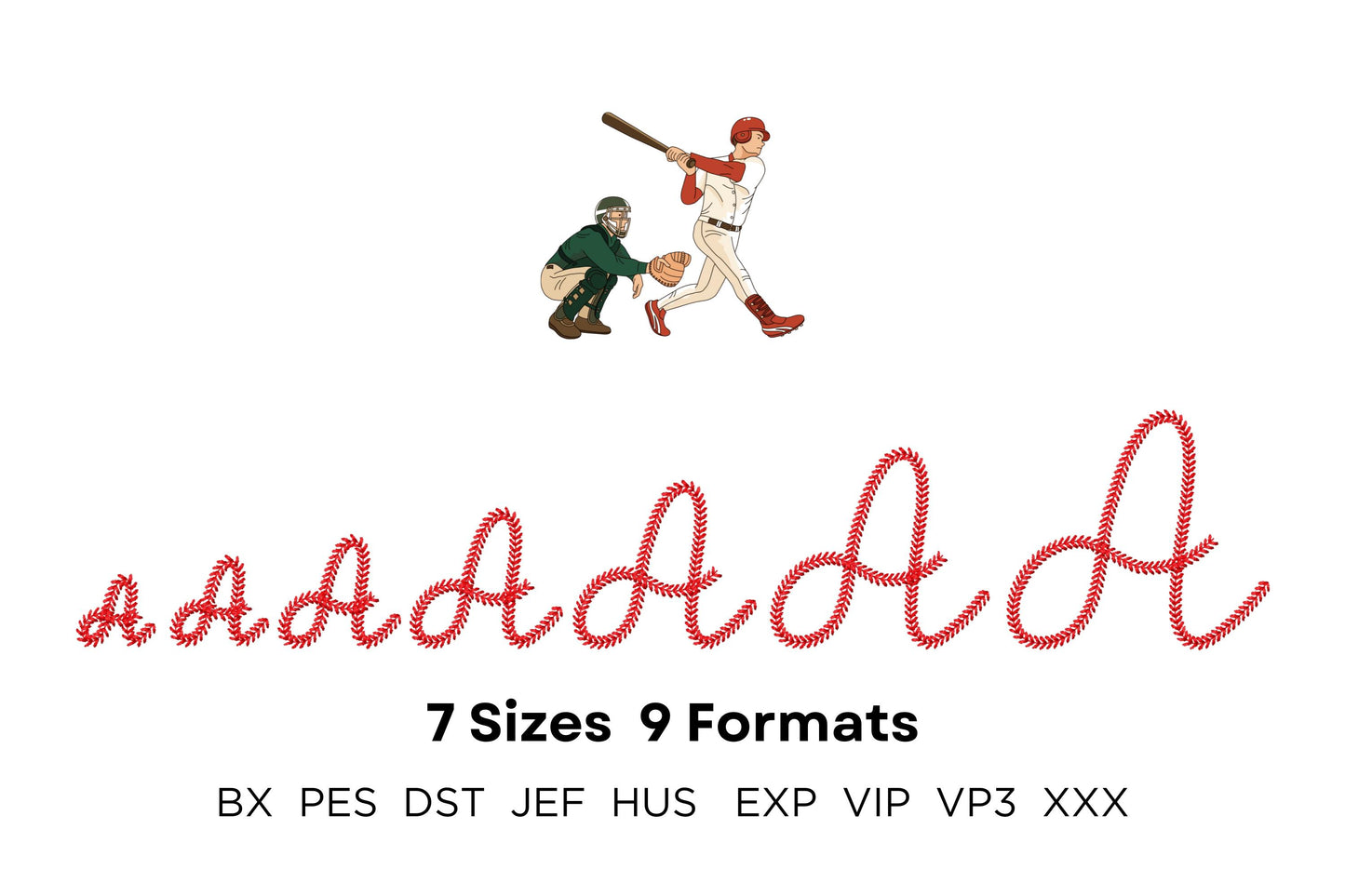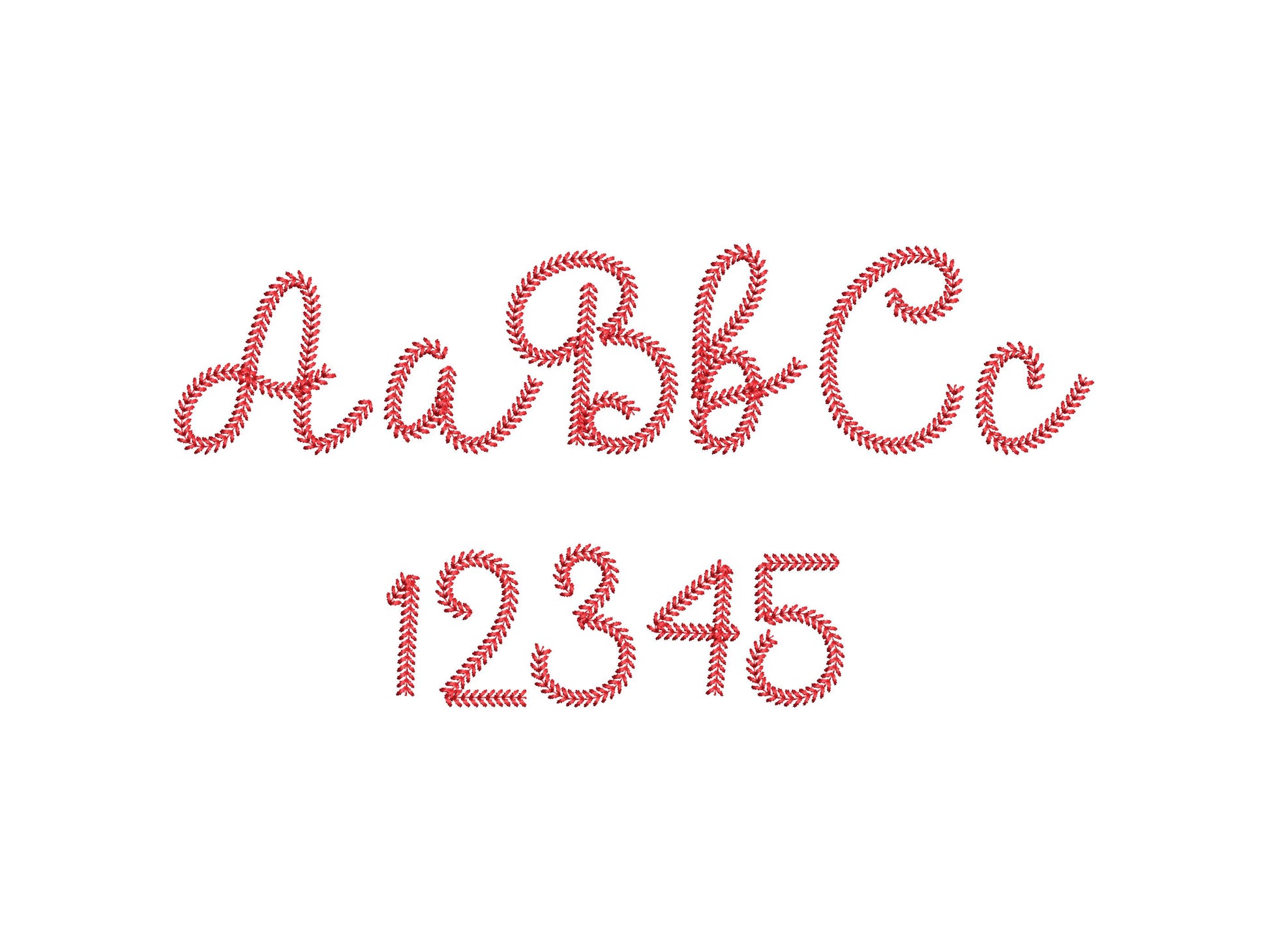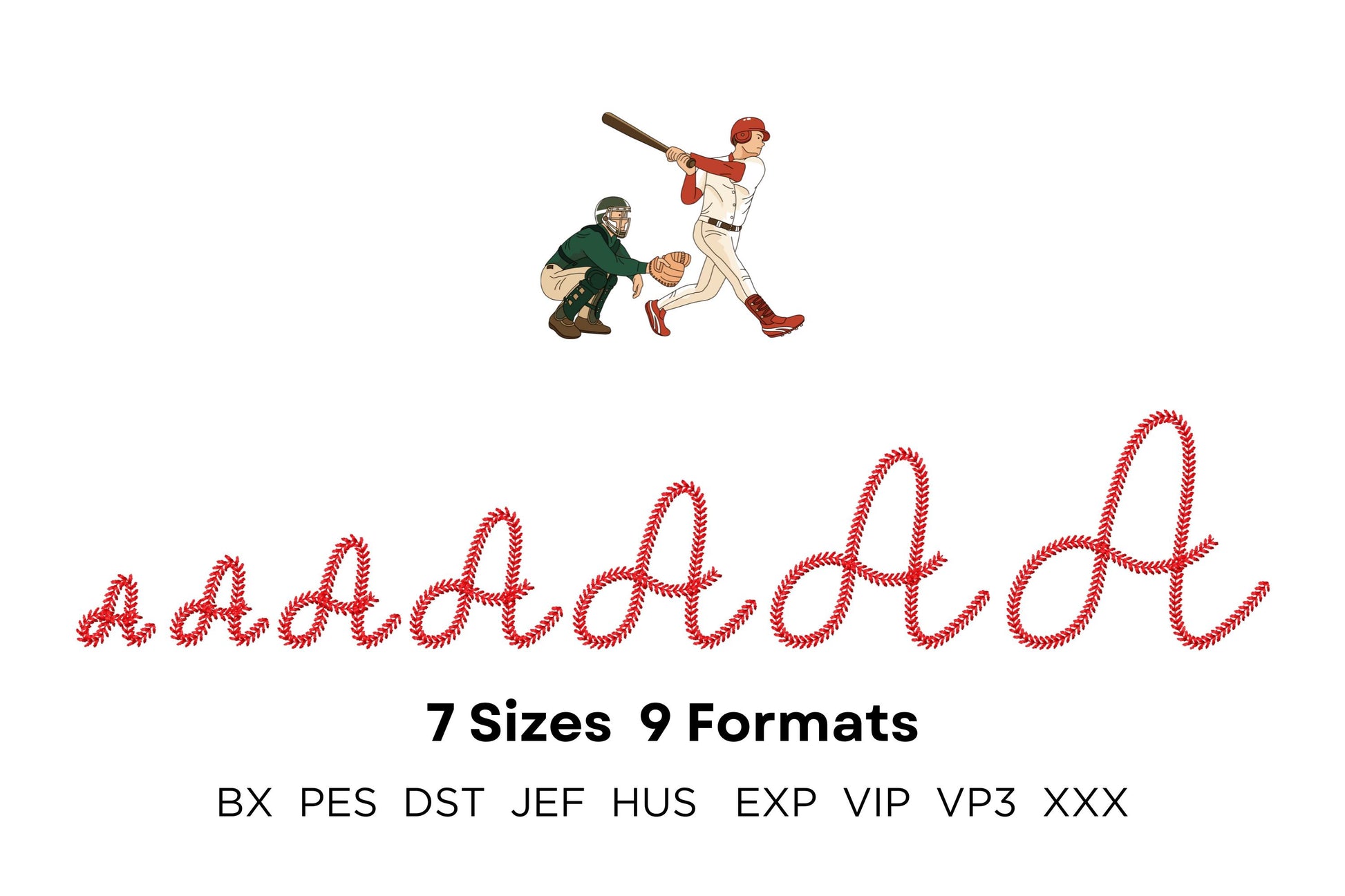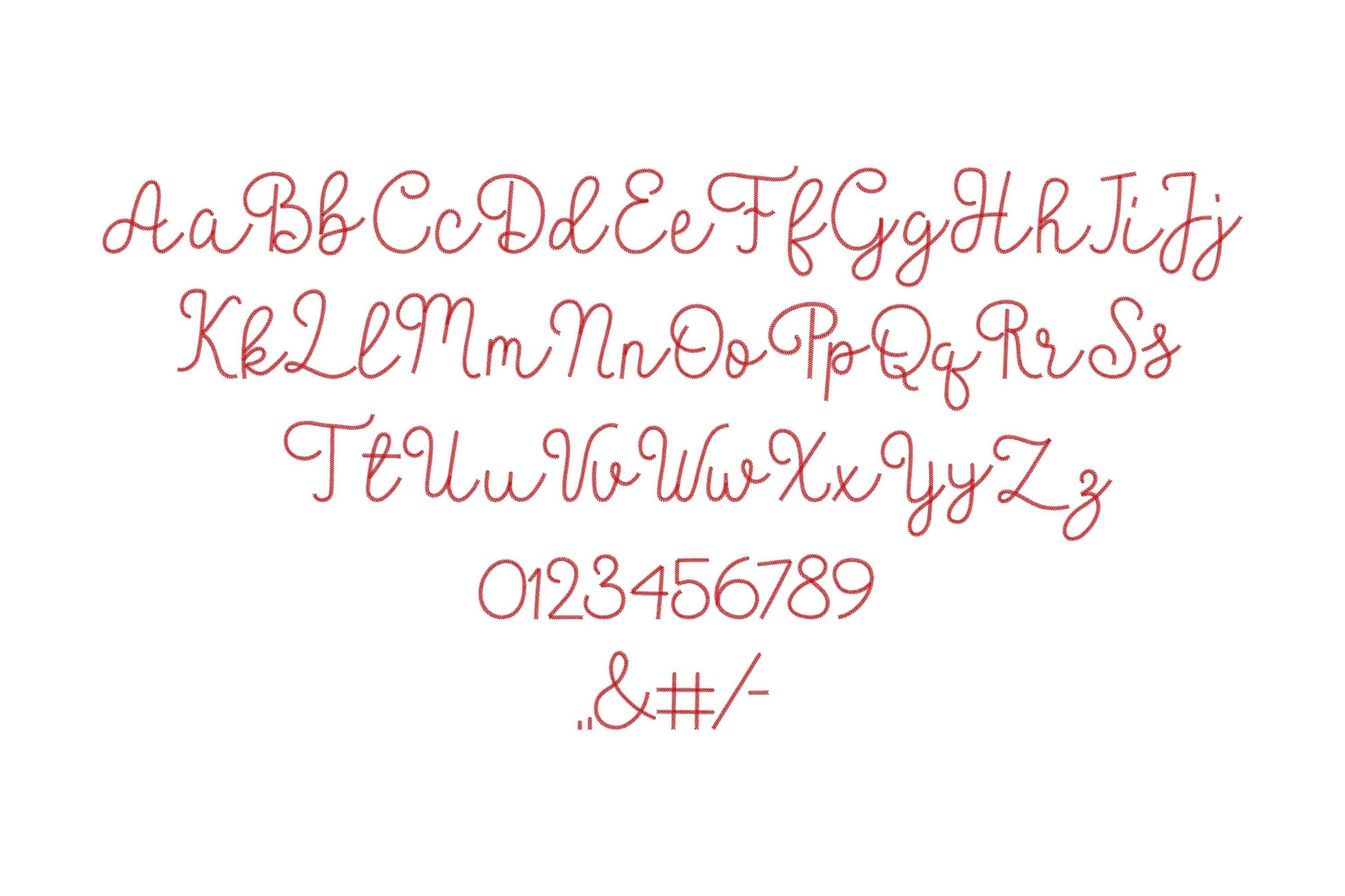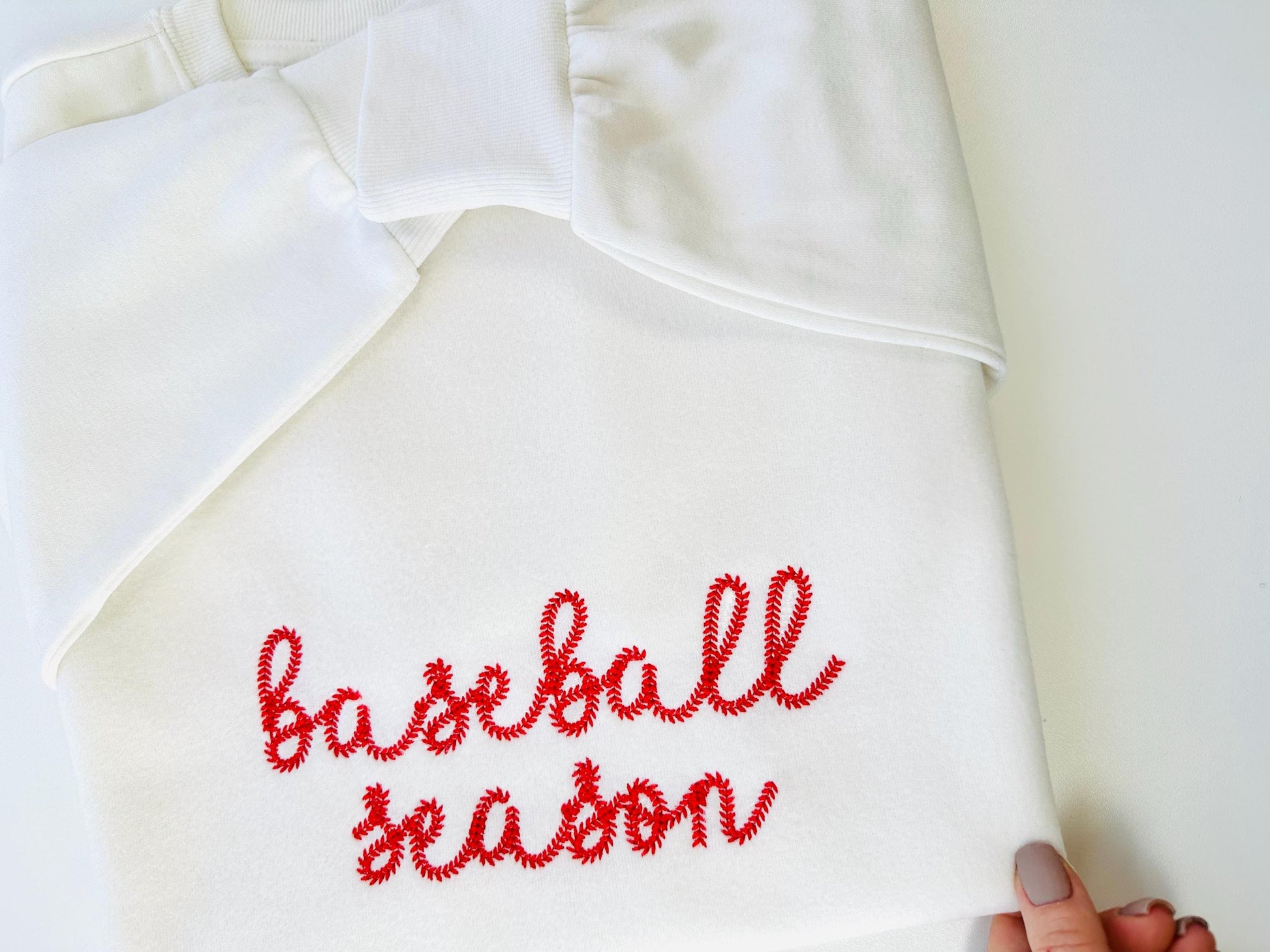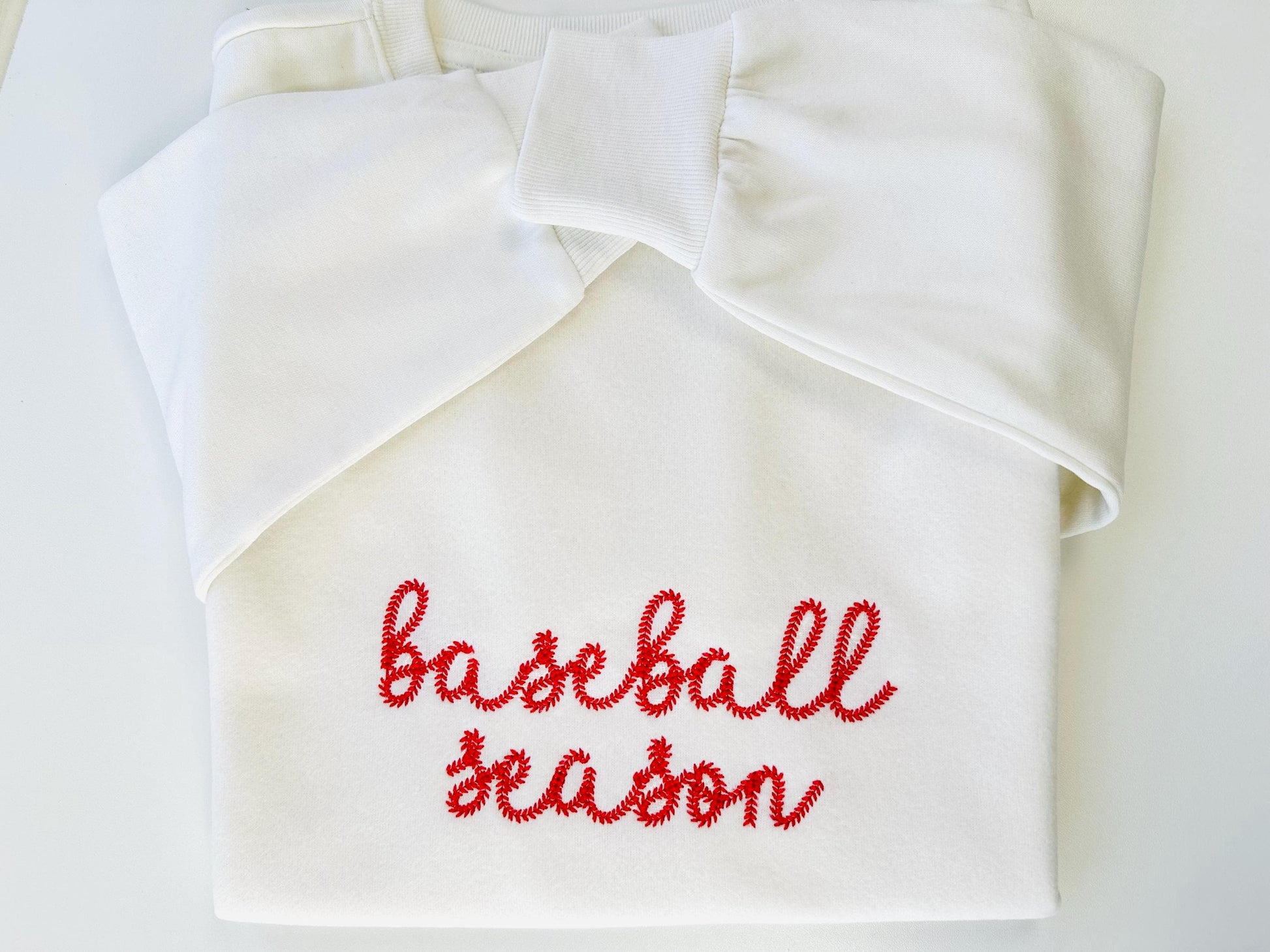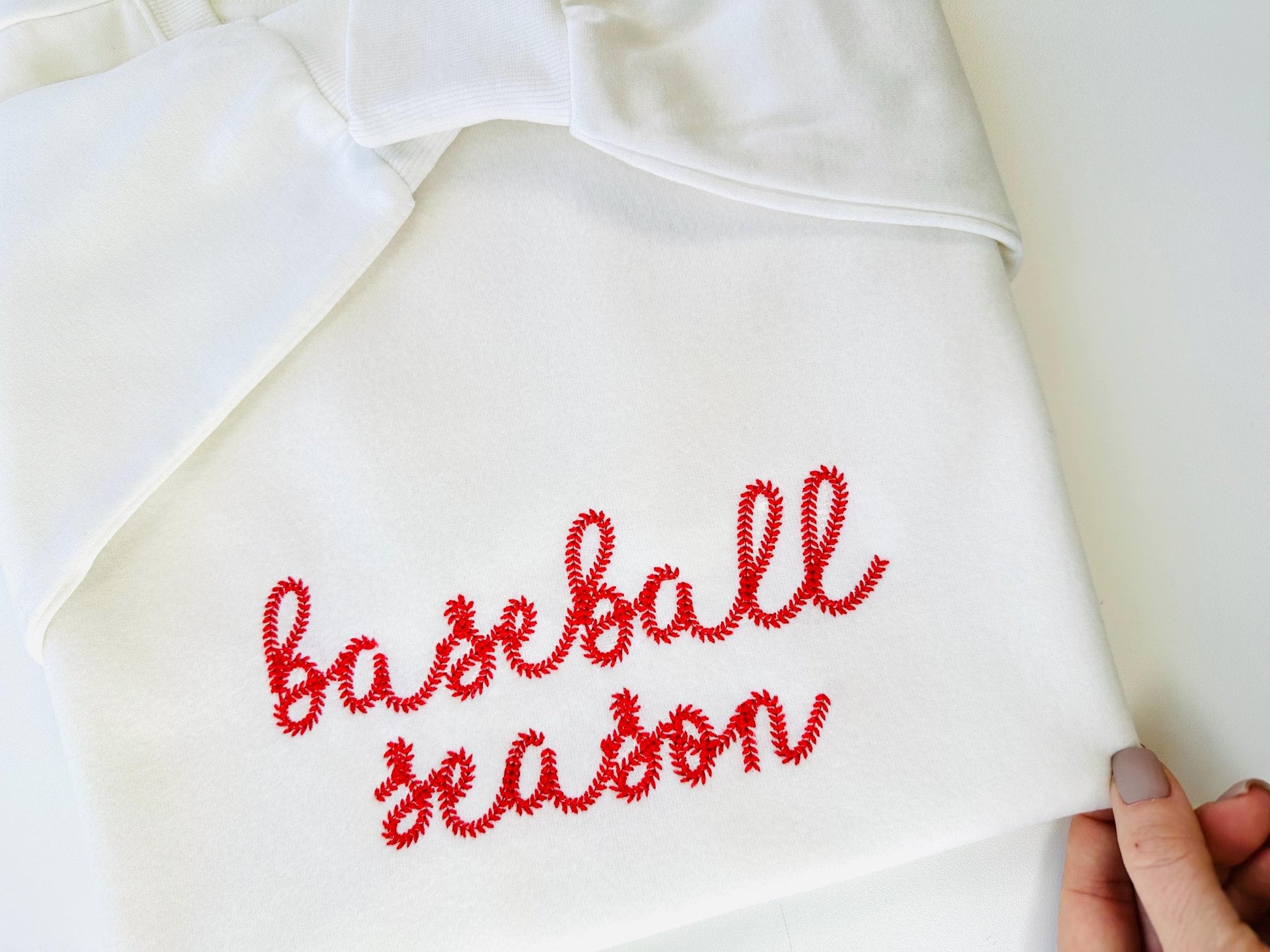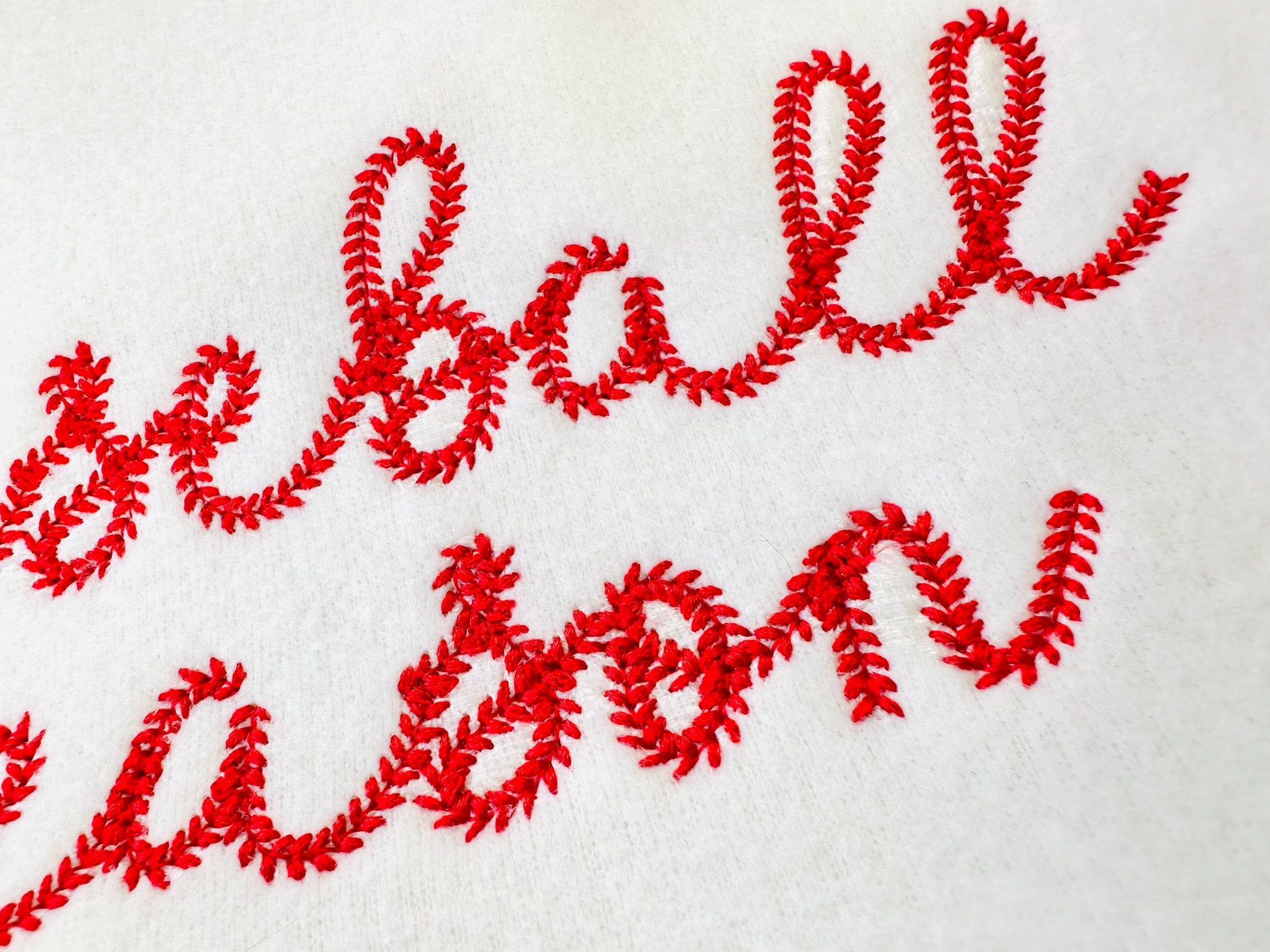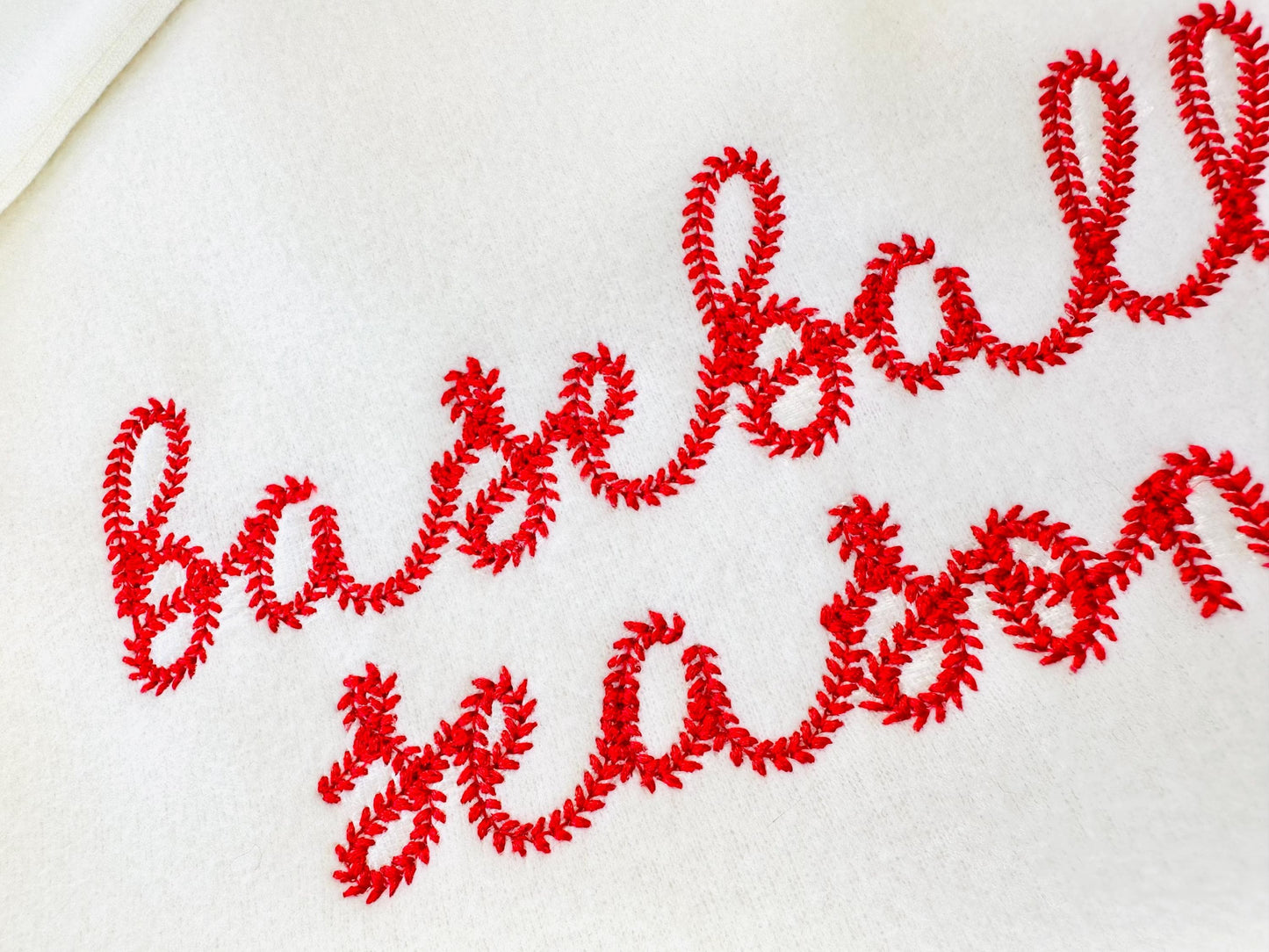
Baseball Stitch Sports Softball Font
Or click to open the linkA handwritten script with baseball stitch details. Great for softball and baseball shirts, team names and sports gifts.
Uppercase and lowercase letters, numbers 0 to 9 and punctuation, in seven sizes: 1, 1.3, 1.6, 2, 2.4, 3 and 3.4 inches.
- Baseball stitch script font
- Uppercase and lowercase letters, numbers 0-9, punctuation
- 7 sizes, 1 to 3.4 in